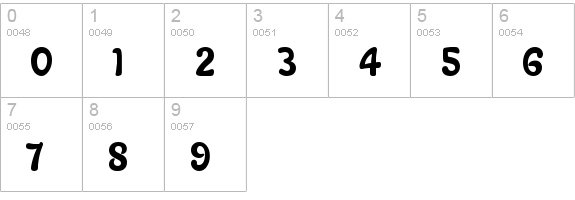
TLLeChatNoir Font Details
Introducing TLLeChatNoir, a captivating and elegant font that will instantly elevate your designs to new heights. This stunning typeface is the perfect choice for those seeking a touch of sophistication and a hint of mystery in their projects. TLLeChatNoir's beautifully crafted curves and intricate details are sure to capture attention and leave a lasting impression. Its unique blend of vintage charm and modern sensibility makes it suitable for a wide range of applications, from branding and packaging to editorial design and much more. One of the most exciting aspects of TLLeChatNoir is that it is completely free. Yes, you read that right - this exceptional font can be downloaded for free at FontsMarket.com. So whether you're a professional designer looking to add a touch of elegance to your latest project or a hobbyist seeking to experiment with typography, TLLeChatNoir is readily available to bring your vision to life. With its extensive character set and multiple stylistic alternates, TLLeChatNoir offers endless possibilities for creative expression. Its versatility allows you to play with different letterforms and create unique combinations that truly reflect your individual style. TLLeChatNoir's smooth and effortless legibility ensures that your message will be conveyed with clarity and impact. Its sleek lines and balanced proportions make it a joy to read, whether in small body text or larger headlines. So don't miss out on this incredible opportunity to enhance your design toolbox with TLLeChatNoir. Download it for free today at FontsMarket.com and embark on a typographic journey that is sure to leave a lasting impression on your audience.